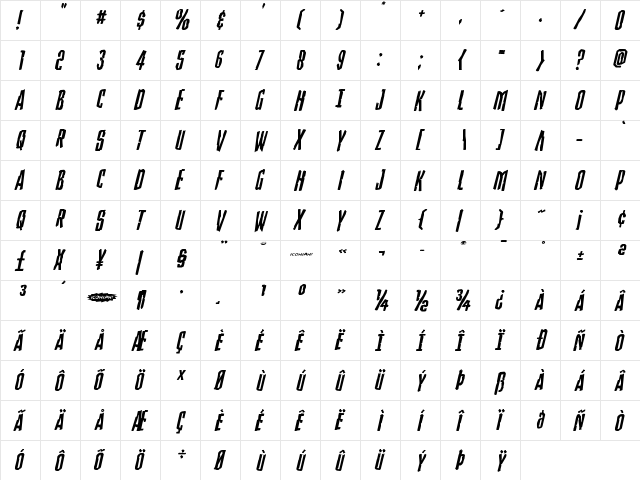
Stranger Danger Expanded Italic Expanded Italic
Design Context for Stranger Danger Expanded Italic Typeface
Stranger Danger Expanded Italic is a composed and adaptable typeface that performs quietly and consistently across a wide range of design contexts. The dynamic lean of this cut emphasises speed and emphasis in any layout.
Pro Tip: Use Stranger Danger Expanded Italic for emphasis, pull quotes, and subheadings where its slanted energy can add rhythm to the layout.